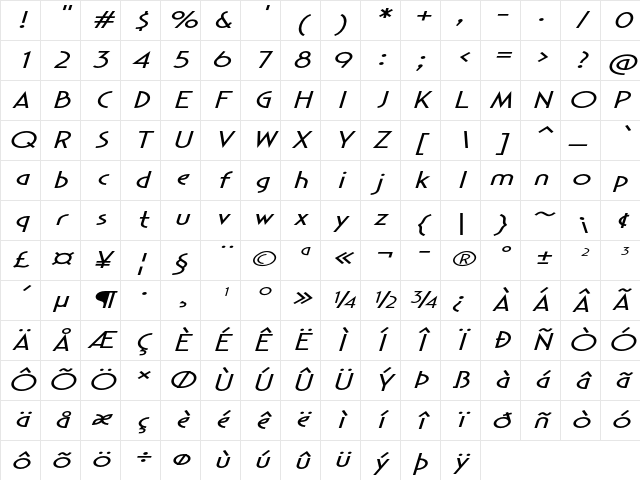
Cristovan Extra-expanded Italic Free Font
Cristovan Extra-expanded Italic
Style: Extra-expanded Italic
Cristovan Family
Complete Cristovan Extra-expanded Italic glyph index. Displaying only characters natively supported by Cristovan Extra-expanded Italic font.
Design Context for Cristovan
Cristovan is a composed and adaptable typeface that performs quietly and consistently across a wide range of design contexts. The slanted form adds forward momentum and visual energy.